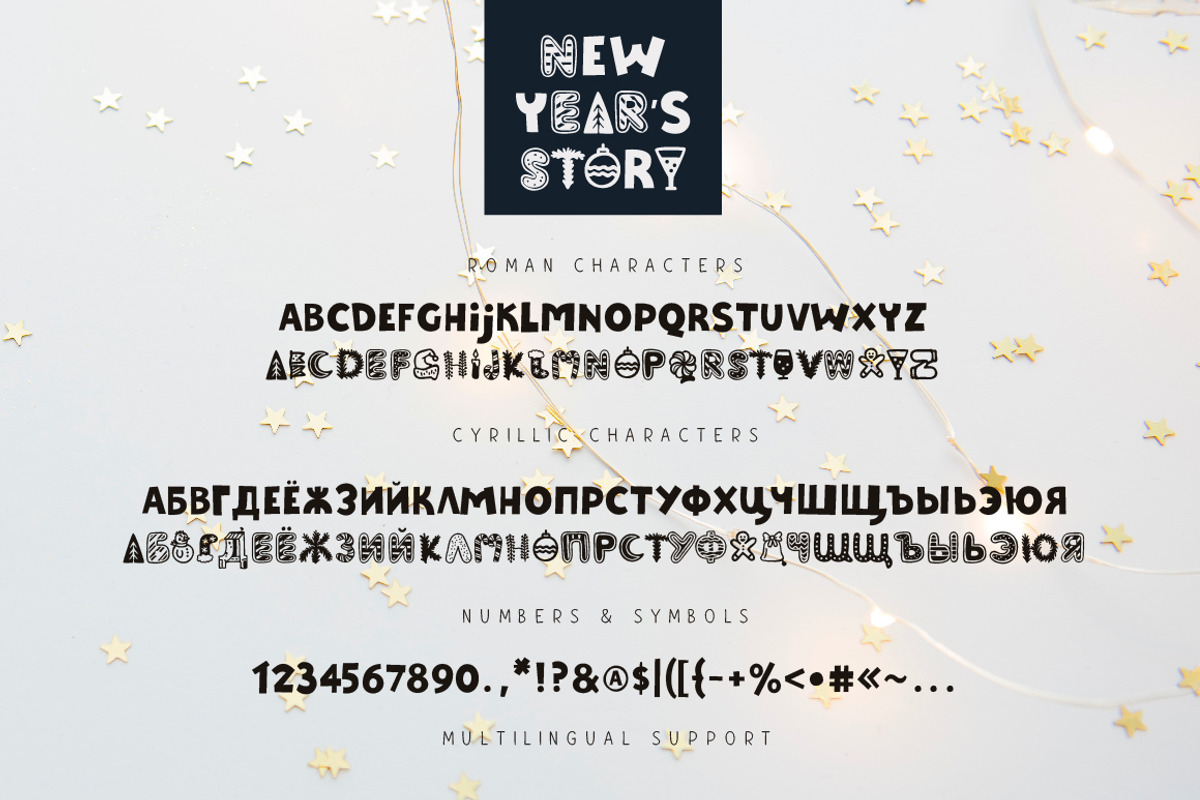
New Year's Story
New Year's Story is a funny Christmas font. It comes with usual uppercase characters and New year's lowercase symbols, large set of punctuation glyphs, numerals, cyrillic characters and multilingual support.
Ideal for design of any Christmas stuff: cards, posters, t-shirts, product packaging, etc.